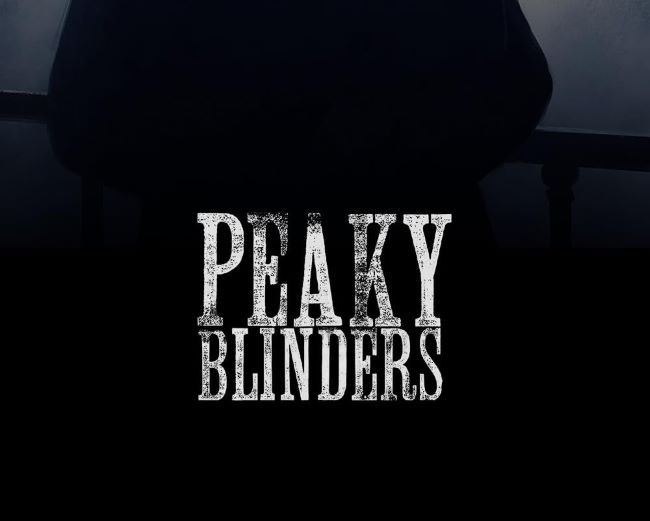
The Peaky Blinders font is as sharp and commanding as the Shelby family themselves. Rugged, vintage-inspired serif lettering gives it an industrial feel, echoing the gritty streets of 1920s Birmingham. The Peaky Blinders font doesn’t just spell out a name—it delivers atmosphere, attitude, and authority. Its bold, old-world style makes it a favorite for designers looking to capture a sense of history, drama, and raw power.
Peaky Blinders Font
Peaky Blinders font
When people search for the Peaky Blinders font, they’re usually after that iconic aesthetic seen in the show’s title sequence. It’s a design that blends heritage with grit, making it ideal for projects that need a touch of vintage toughness or gangster-era flair. Whether used in posters, apparel, or digital designs, the Peaky Blinders font instantly carries a sense of danger and style.